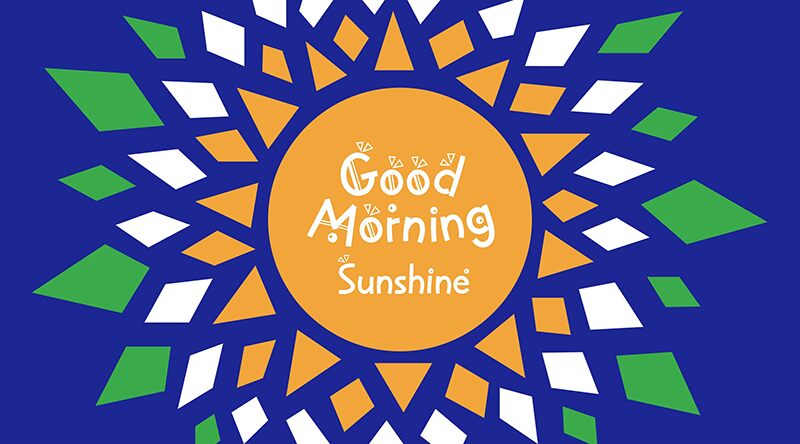
HFJoker Regular
HF Joker font by HyFont Studio is a free display font that delivers a cartoonish vibe. Its quirky irregular shapes, geometric accents, and theatrical flair add up to create a whimsical design that is playfully modern without being over the top.
This font would shine on comic book covers, children’s books, video game titles, animated movie posters, cards and invitations for themed parties, and all sorts of artistic projects.